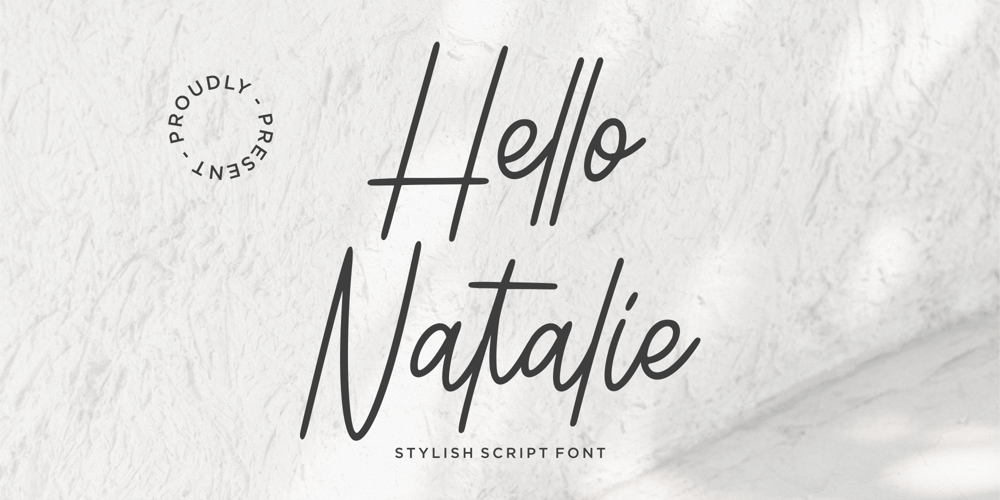
Hello Natalie Font Family was designed by Annas Rifky Anhar and published by Bhubbiberry Studio. Hello Natalie contains 1 styles and family package options. Hello Natalie Is a stylish script font. It is perfect for product packaging, branding project, magazines, social media, weddings, or just used to express words above the background.